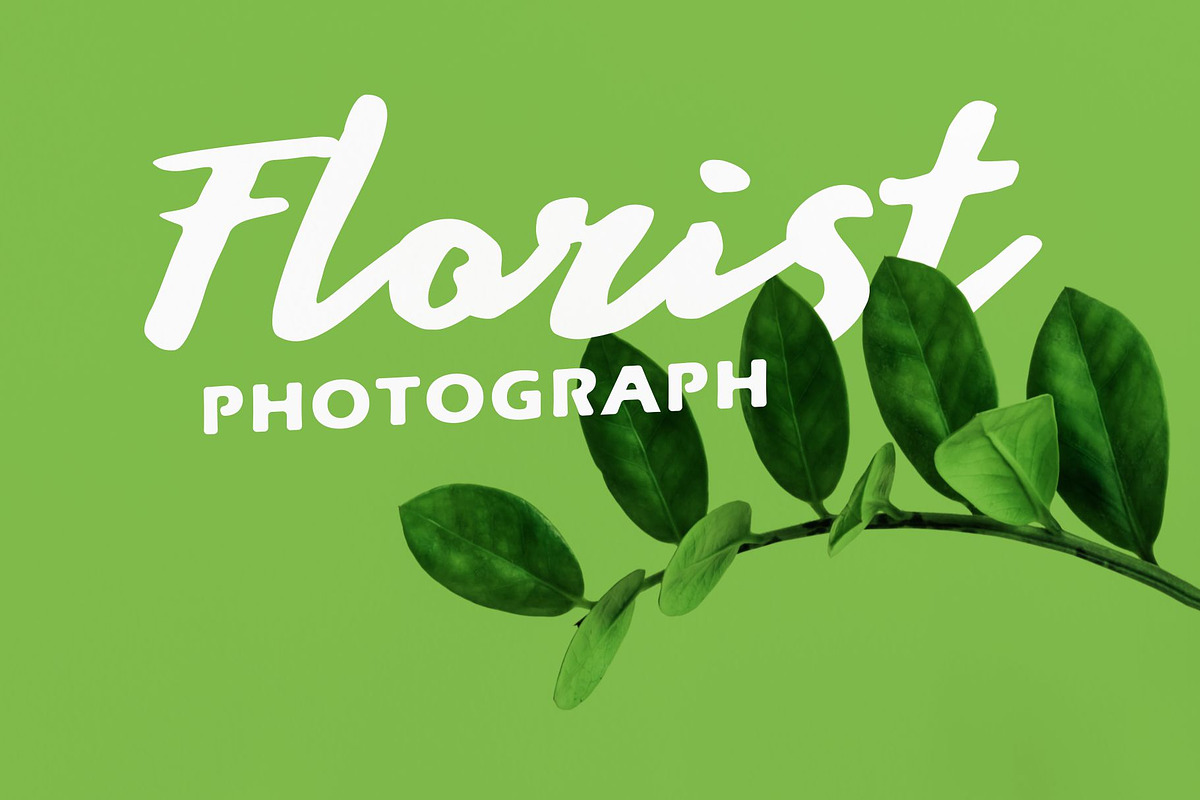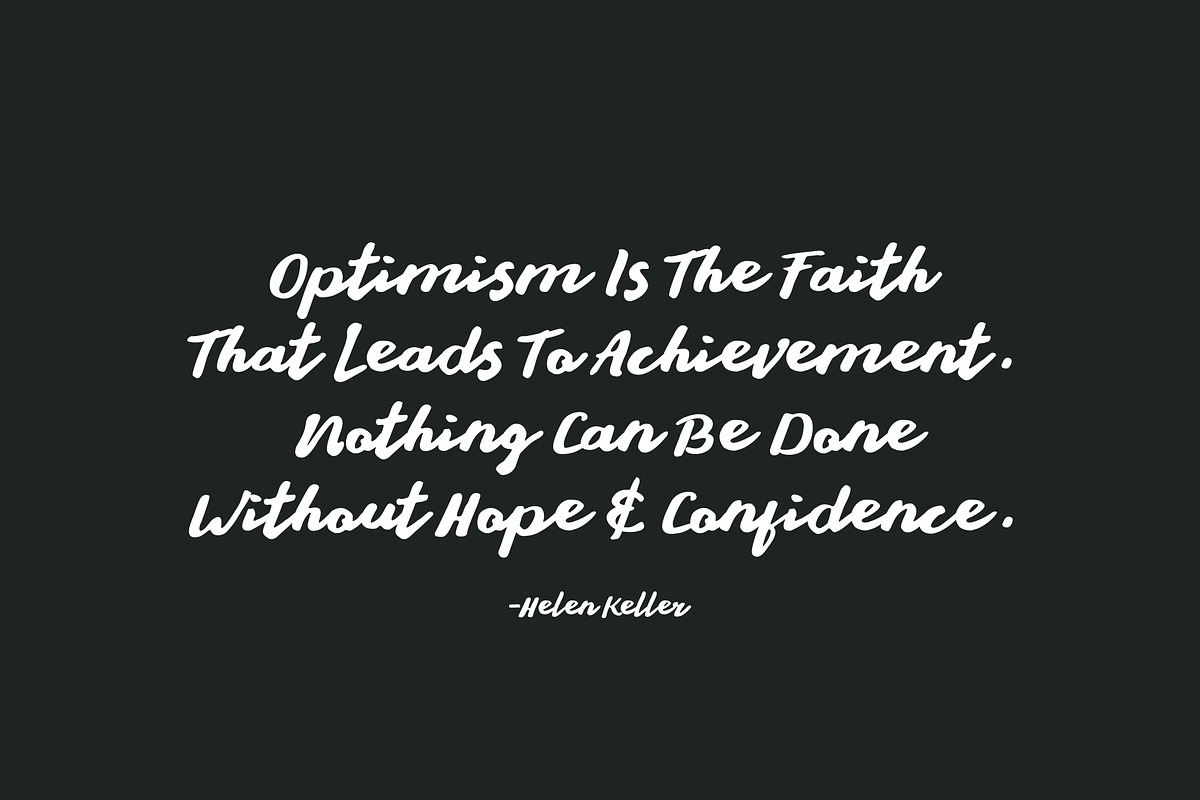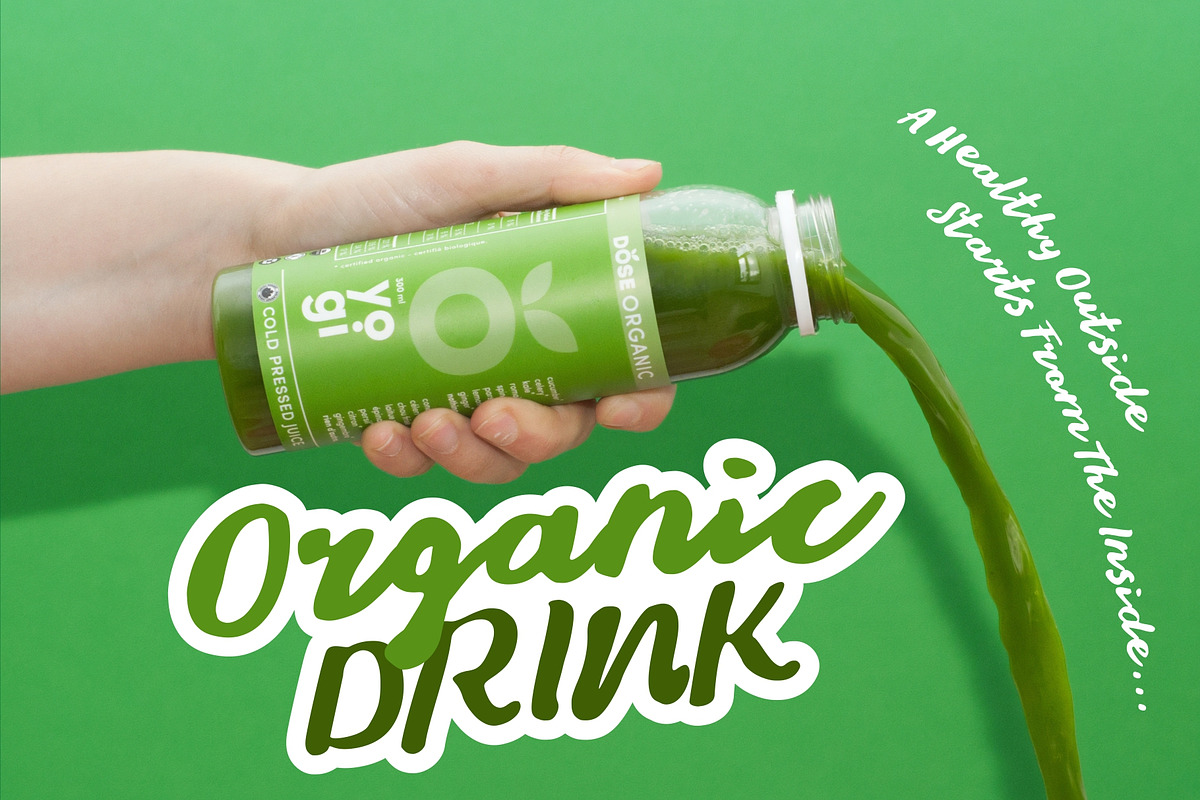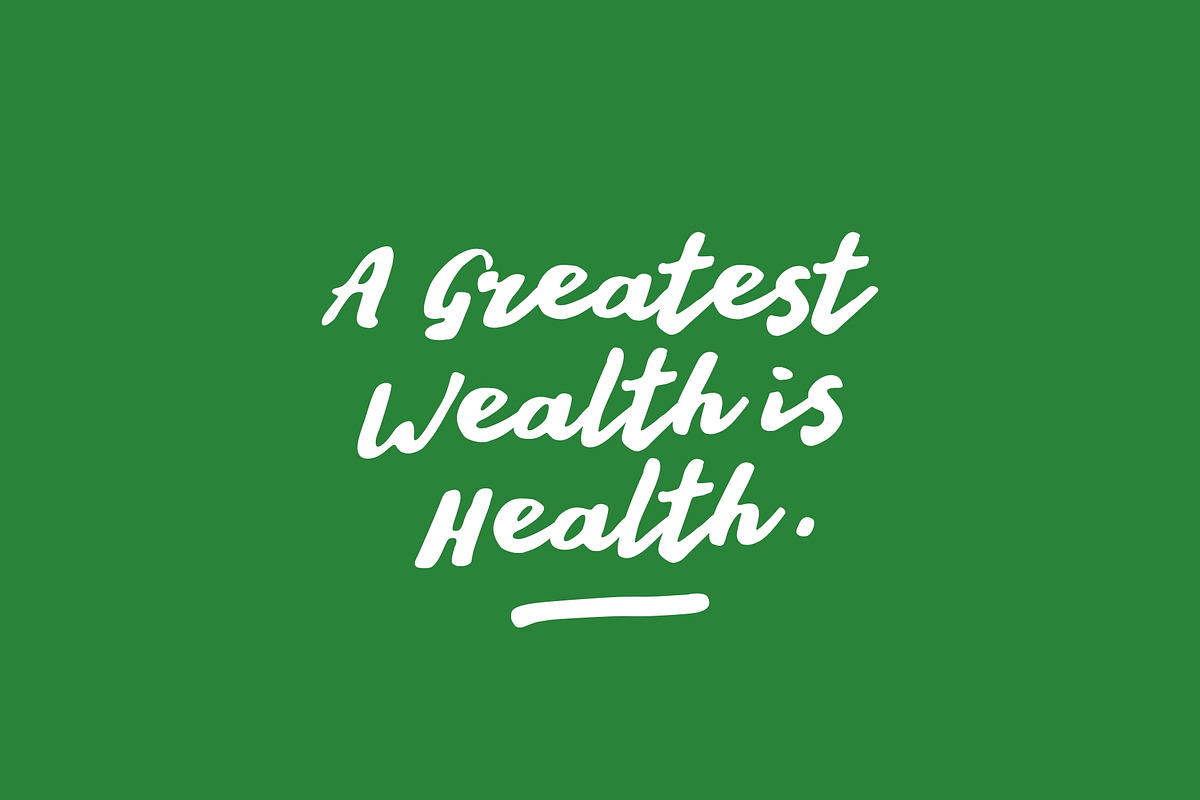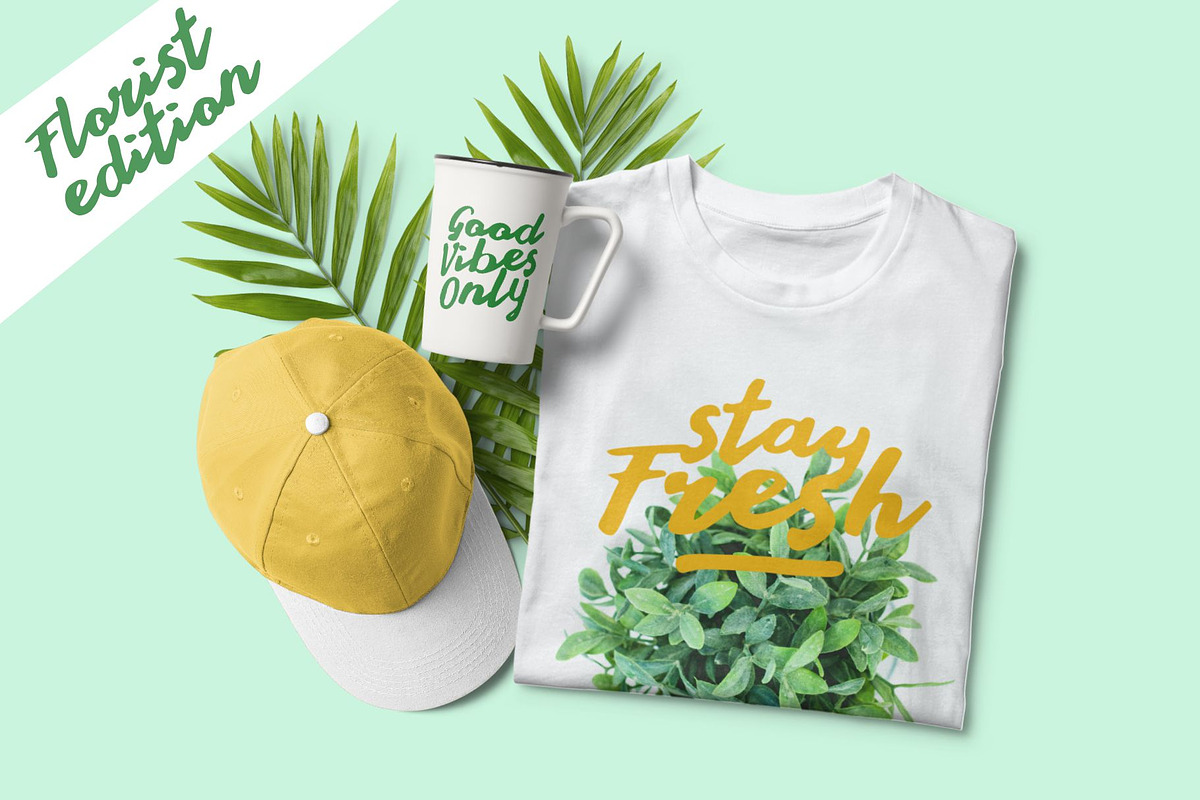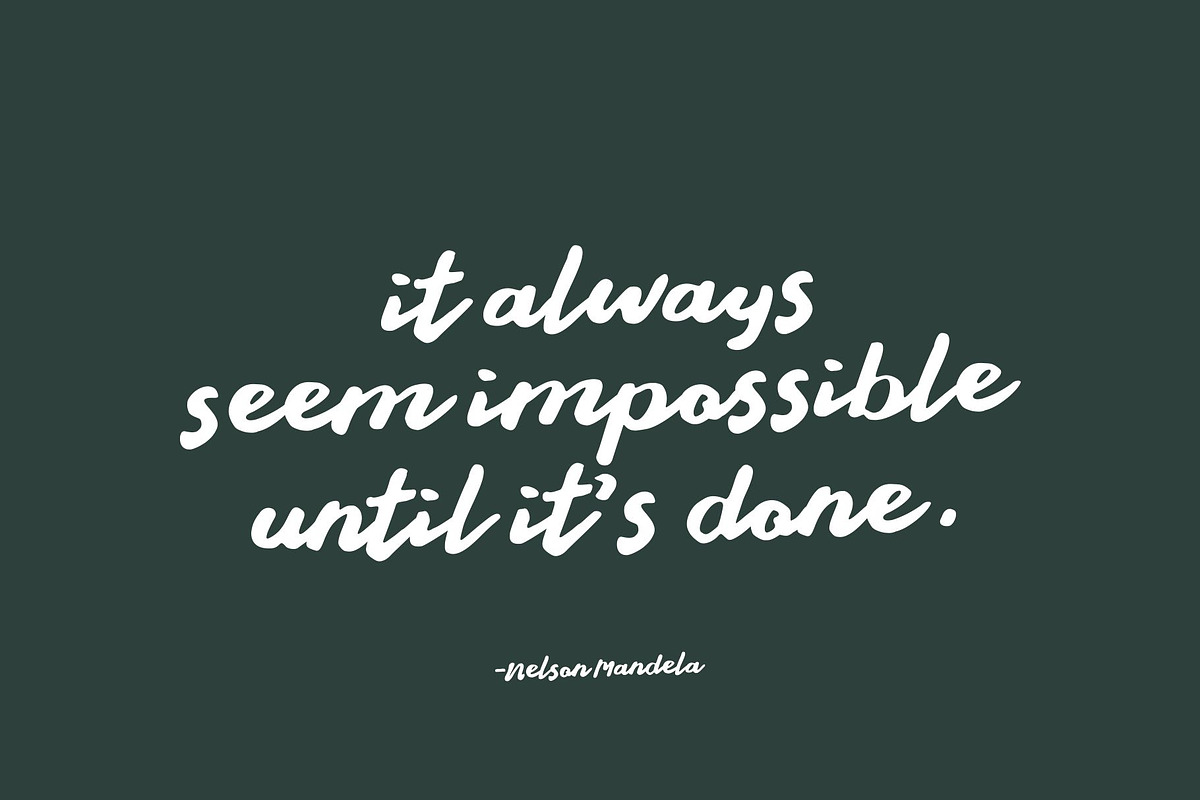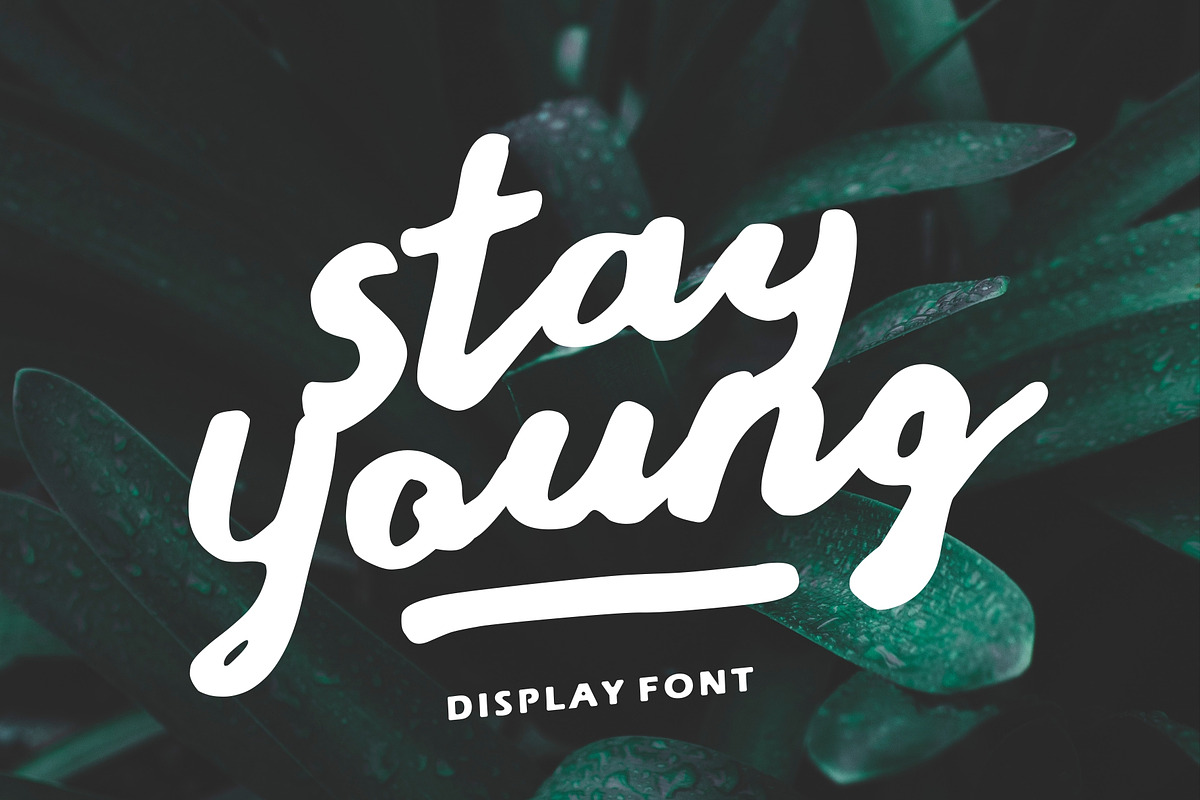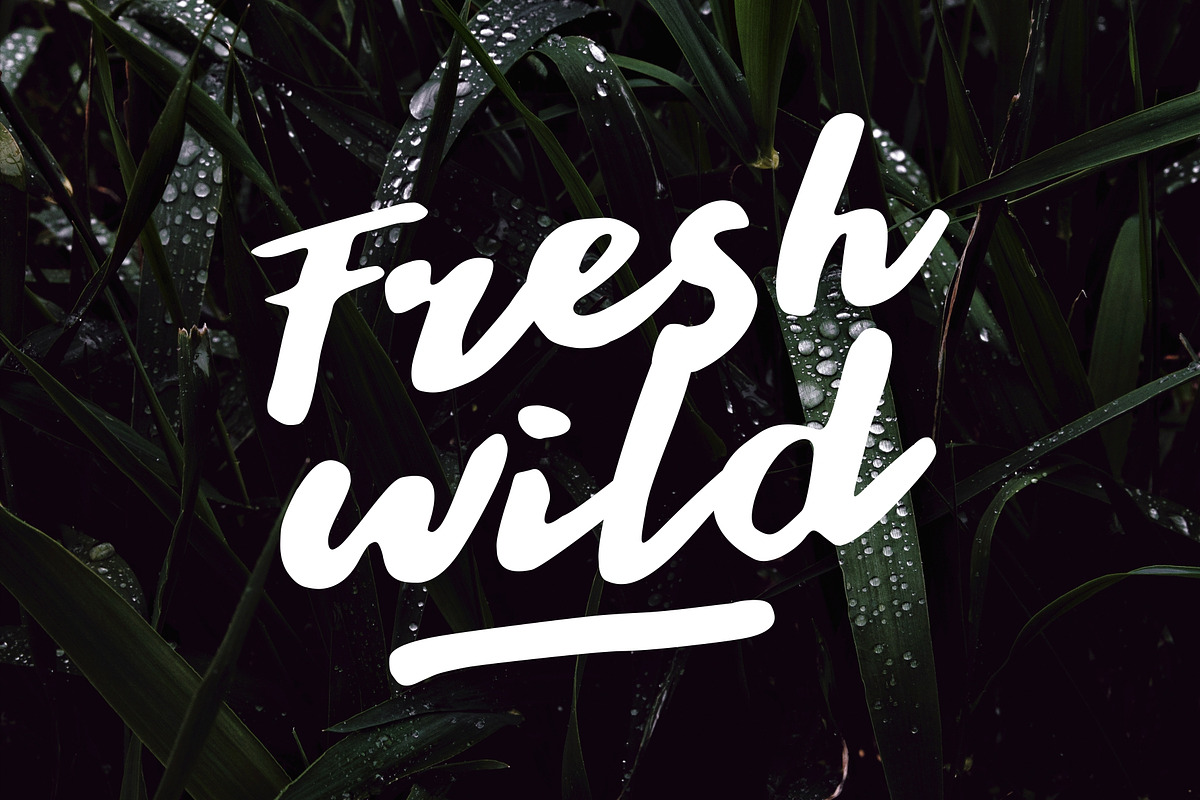
Stay Young - A Display Font
Presenting Stay Young! A Display Font with natural dan fresh looks. Stay Young Font looks natural on all your design projects such as quotes, poster design, product packaging, t-shirt, food and drink poster, etc.This font can be used at any time and any project. You can see in the presentation picture above, it's so natural looks, isn't it?
The Multilingual Glyphs Features: ÀÁÂÃÄÅÆÇÈÉÊËÌÍÎÏÐÑÒÓÔÕÖØŒÙÚÛÜÝŸàáâãäåæçèéêëìíîïðñòóôõöøœùúûüýÿ. Languages Support e.g. Afrikaans, Albanian, Catalan, Danish, Dutch, English, Indonesian, Italian, Malay Norwegian, Portugese, Spanisch, Swedish, Zulu